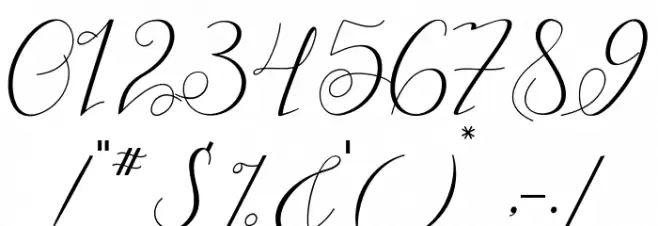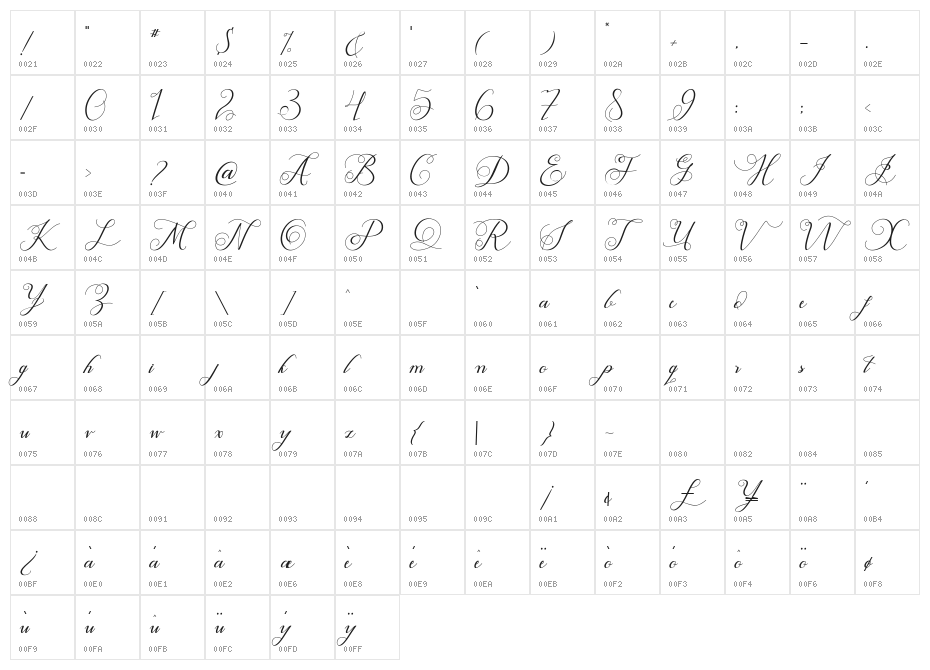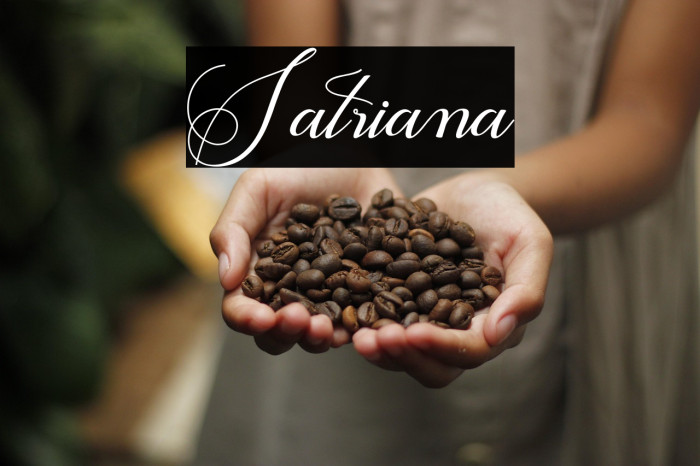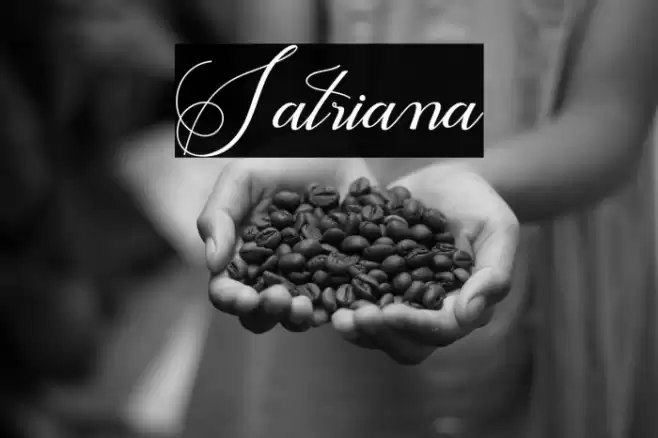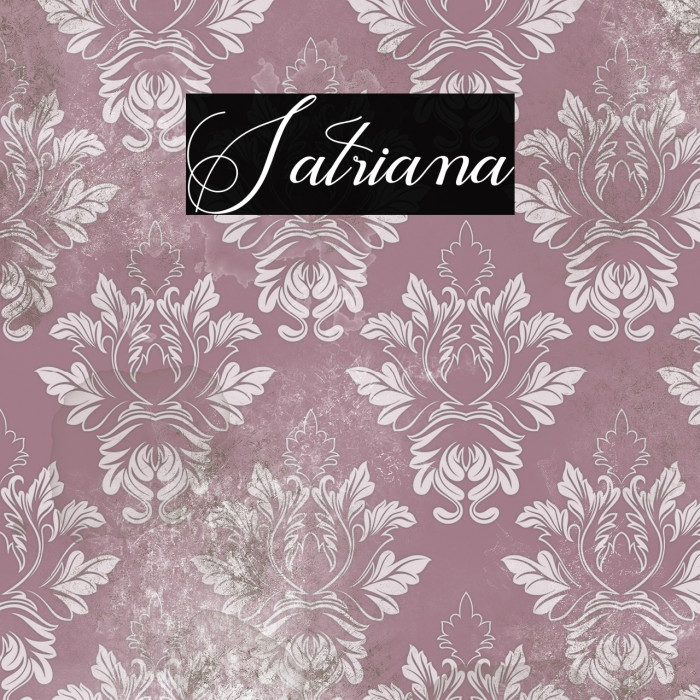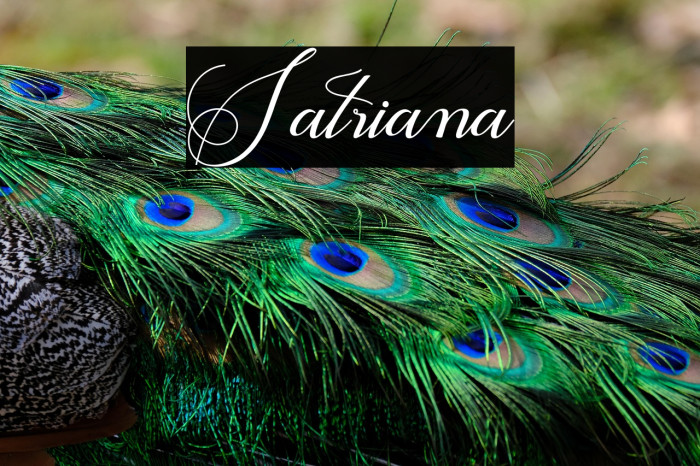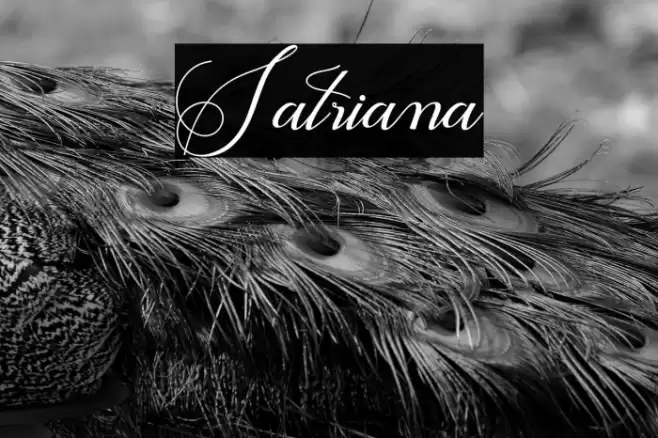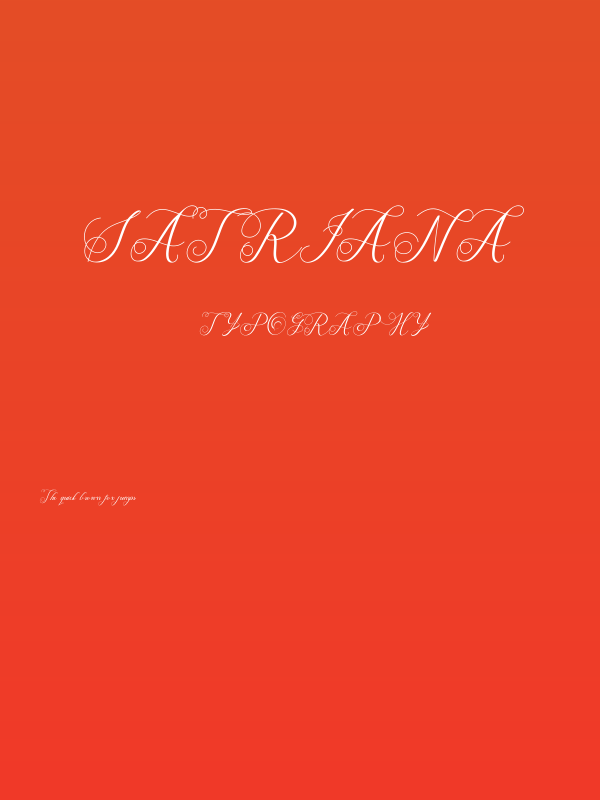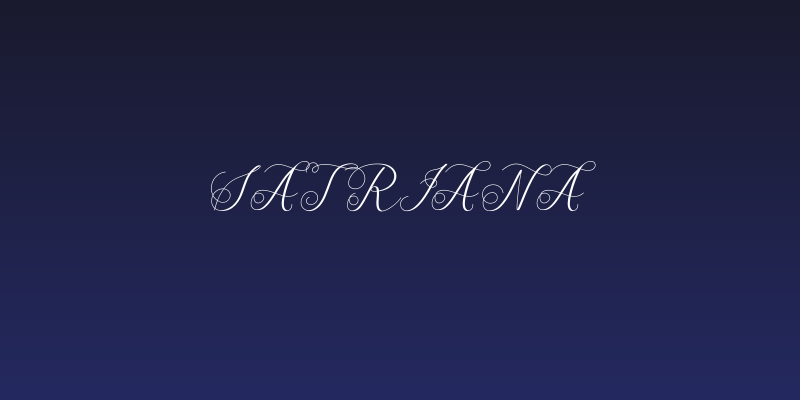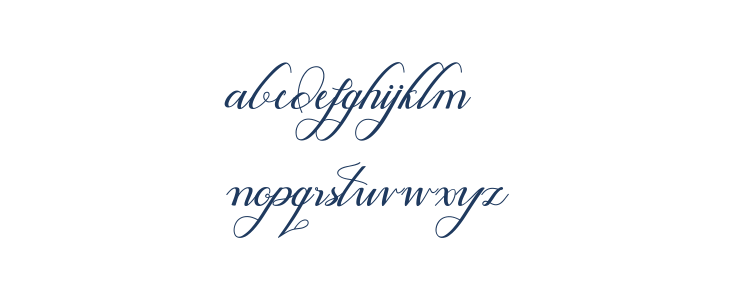
Satriana Font
Satriana Description
This elegant script font features intricate, flowing lines and a sophisticated style. Each character is adorned with delicate swashes and flourishes, creating a sense of movement and grace. The uppercase letters are particularly ornate, with loops and curves that extend beyond the baseline, while the lowercase letters maintain a more restrained elegance. The numerals and special characters are equally detailed, ensuring a cohesive look across all text. This font's high contrast between thick and thin strokes adds to its refined appearance, making it ideal for formal and decorative applications.
Overall StyleElegant, Decorative
Use CaseLogos, Invitations, Decorative headings
Proposed ProjectsIdeal for wedding invitations, luxury branding, elegant logos, and decorative headings.